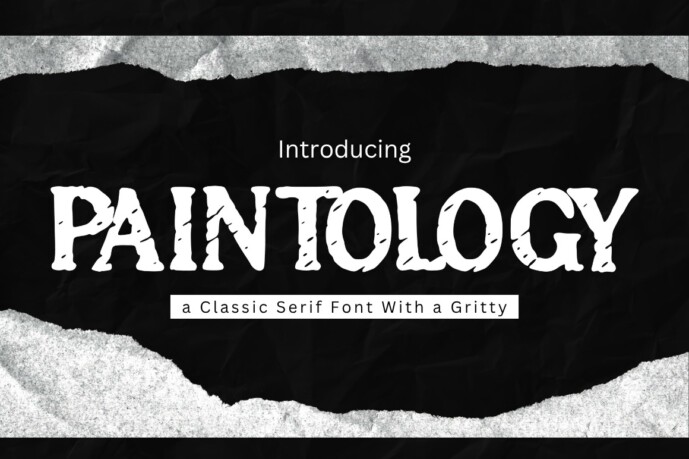
Paintology Font
Paintology Font is a classic serif font with a gritty, textured twist. Its vintage letterforms are combined with worn-out edges and ink splatters, making it ideal for horror titles, historical themes, underground zines, retro posters, and anything that demands a raw, rugged look. Perfect for designs that want to balance tradition and rebellion